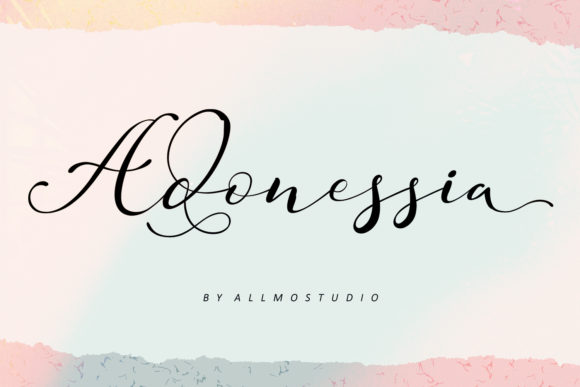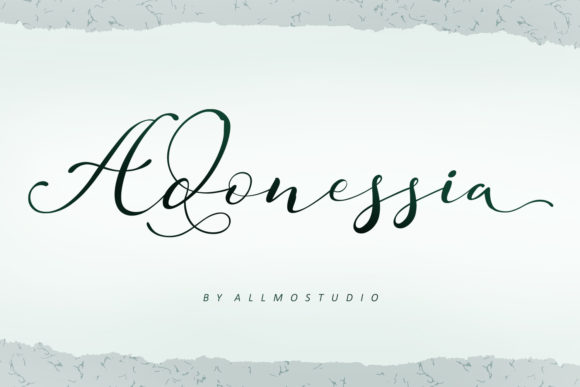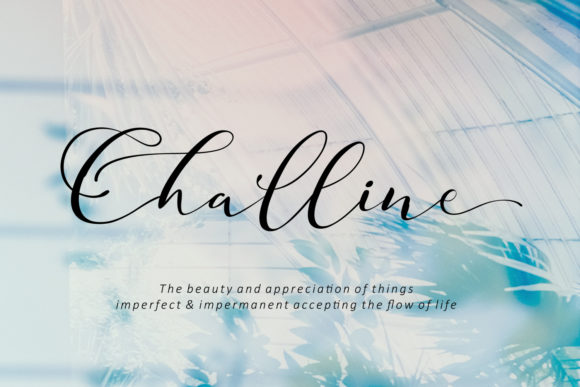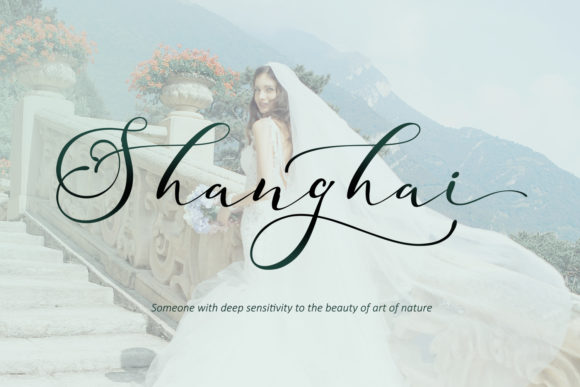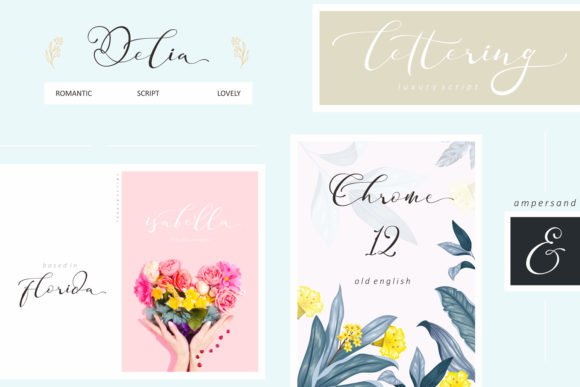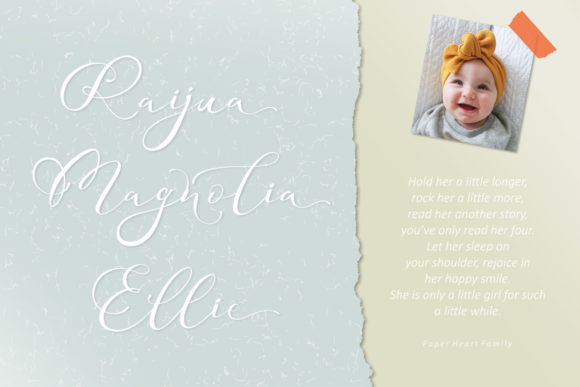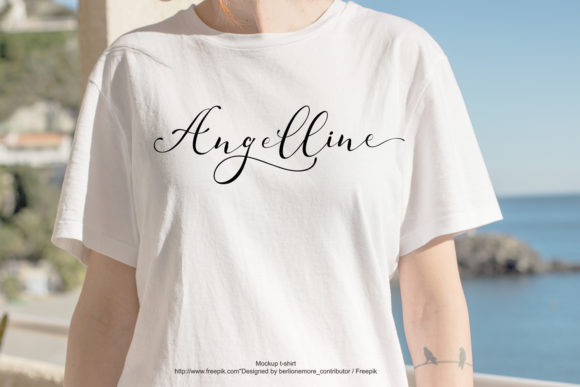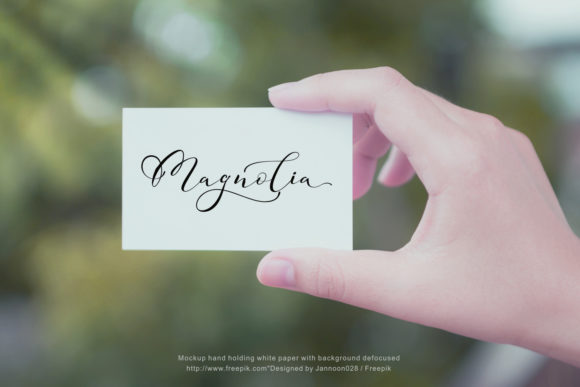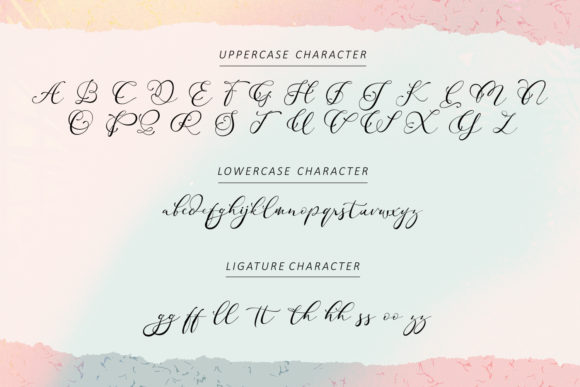
HomeScript FontsAdonessia Font Script Fonts Adonessia Font FacebookXPinterestWhatsApp Adonessia Font Poster 2 Adonessia Font Poster 3 Adonessia Font Poster 4 Adonessia Font Poster 5 Adonessia Font Poster 6 Adonessia Font Poster 7 Adonessia Font Poster 8 Adonessia Font Poster 9 Adonessia Font Poster 10 About Adonessia Font Adonessia is a sweet and cool script font with a nice feel. Get inspired by its modern style. DOWNLOAD ON CREATIVE FABRICAThis font is sold and delivered by Creative Fabrica. Font Canyon may earn a commission if you buy through this link. People also explored Milgun Font Kids Cut Font Montelifa Gelista Font Good Love Font Auturium Font Romedhal Font Jilly Font Christmas Brush Font Farmhouse Font 316 0 TagsAdonessia Font Previous articleBlack Catty Script FontNext articleSyahilla Script Font LEAVE A REPLY Cancel reply Comment: Please enter your comment! Name:* Please enter your name here Email:* You have entered an incorrect email address! Please enter your email address here Website: Save my name, email, and website in this browser for the next time I comment. Personal Use Free Nugo Sans Personal Use Free Read more about this font Boston Traffic Personal Use Free Read more about this font Deftone Personal Use Free Read more about this font Open Heart Personal Use Free Read more about this font BLOG Free Fonts Risk: Why Free Fonts Can Be Dangerous for Designers Free Fonts Risk: Why Free Fonts Can Be Dangerous for Designers Using free fonts is a common practice in web and graphic design. However, the... Best Fonts for T-Shirt Design – Top 2025 Picks 5 Fonts That Will Dominate Design Trends in 2026 Top 7 Google Fonts Alternatives for Faster and Privacy-Friendly Web Design (2025)